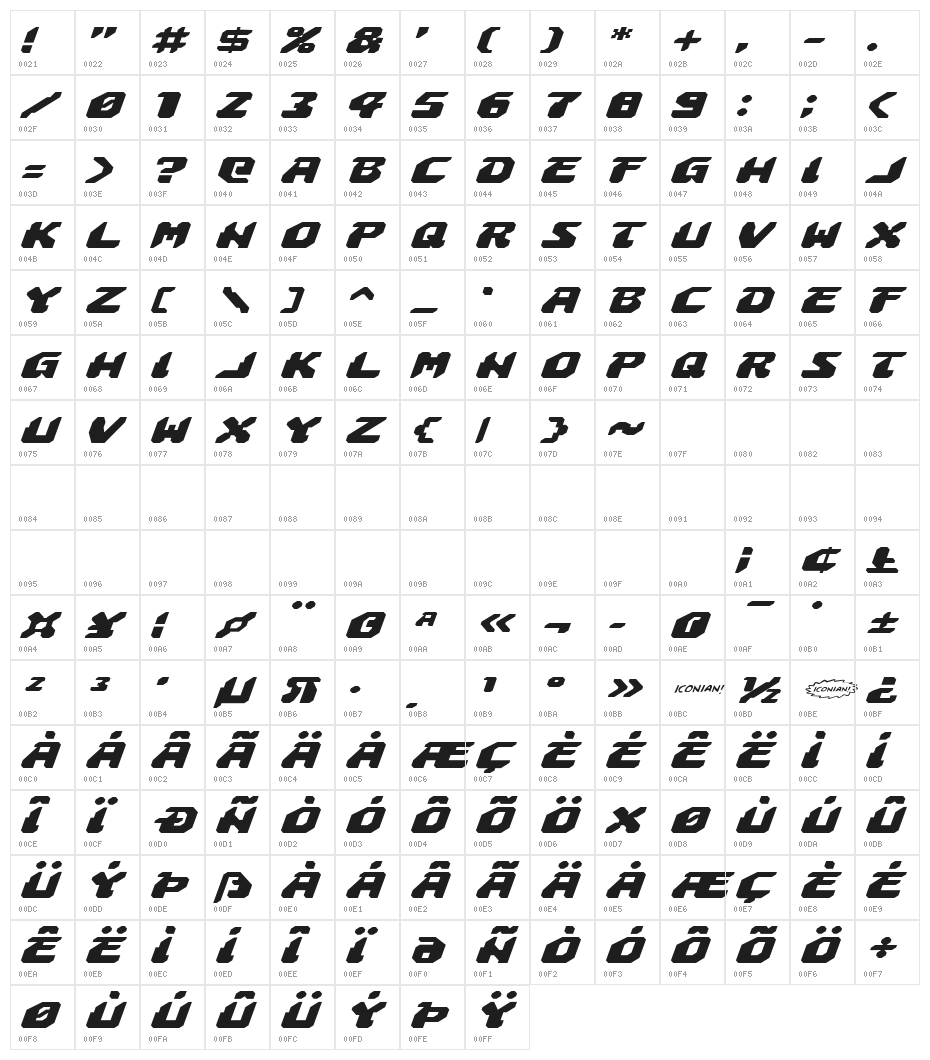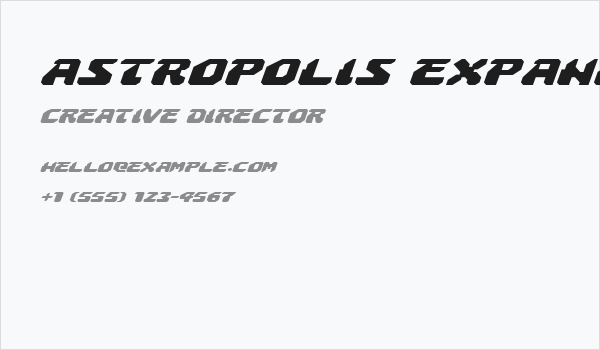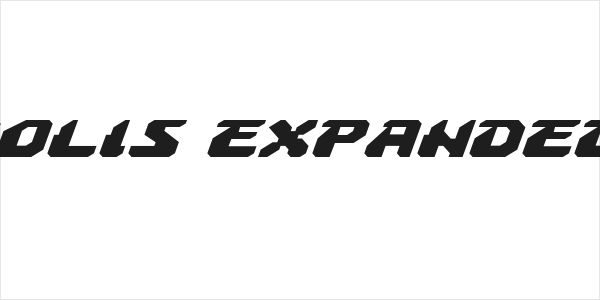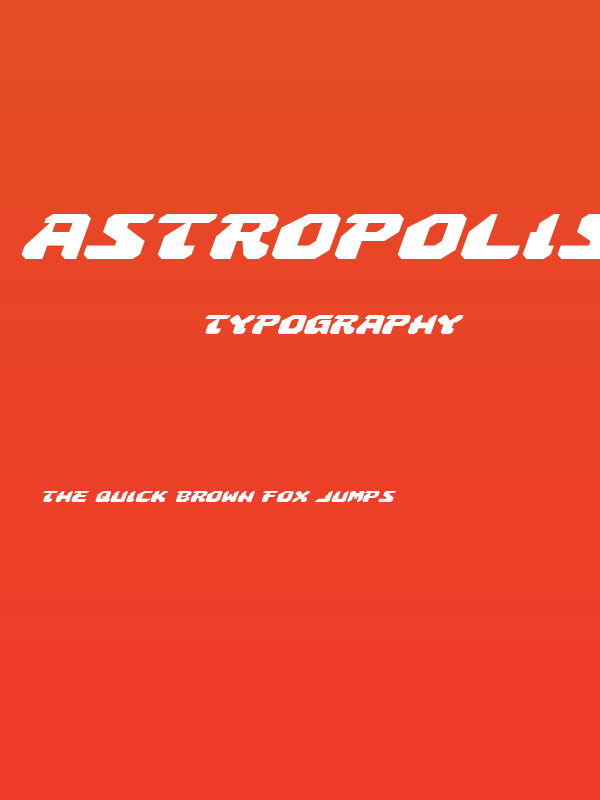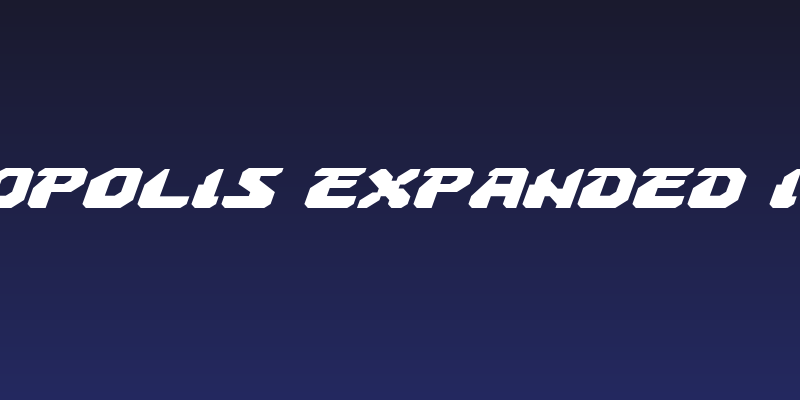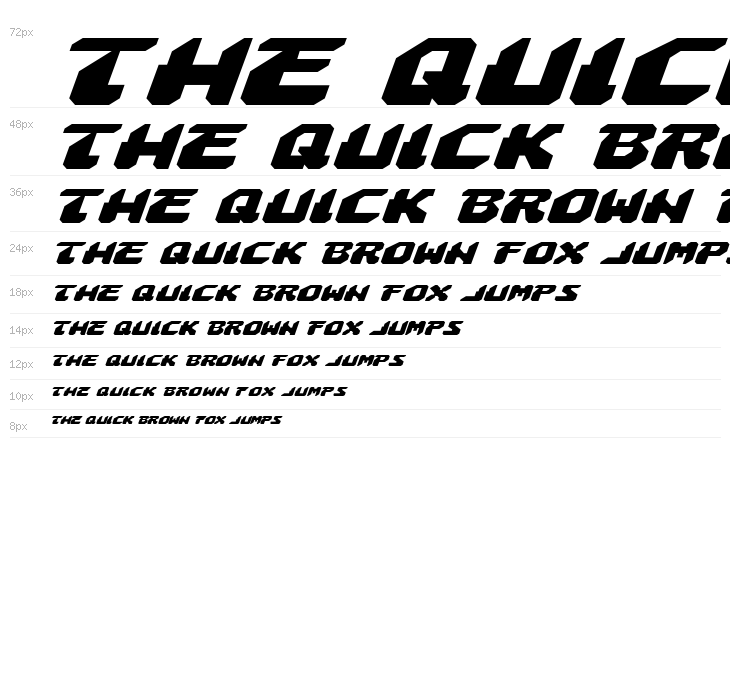
Astropolis Expanded Italic Font
Astropolis Expanded Italic Description
This font showcases a bold and dynamic style with a futuristic flair. The characters are distinctly angular with sharp edges and a forward-leaning italic slant, giving a sense of motion and speed. The expanded width of the letters enhances its presence, making it ideal for attention-grabbing designs. The uppercase and lowercase letters maintain a consistent style, while the numerals and special characters complement the overall aesthetic. The font's high contrast in stroke thickness adds to its bold appearance, making it suitable for impactful visual statements.
| Proposed Projects | Ideal for sci-fi themed posters, video game titles, technology branding, and dynamic logo designs. |